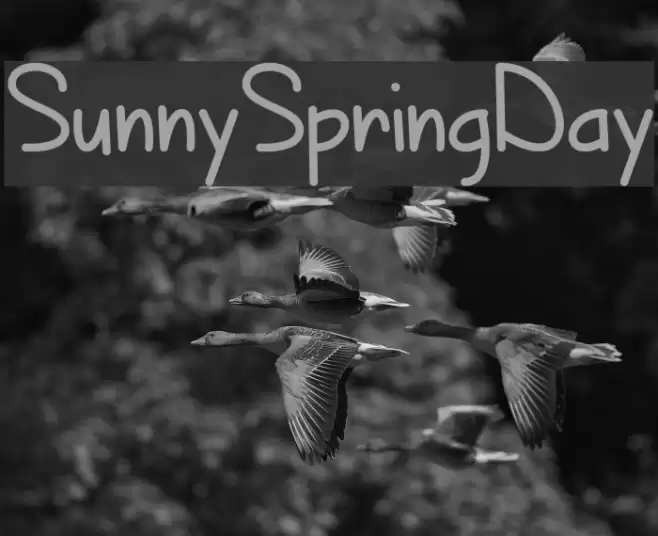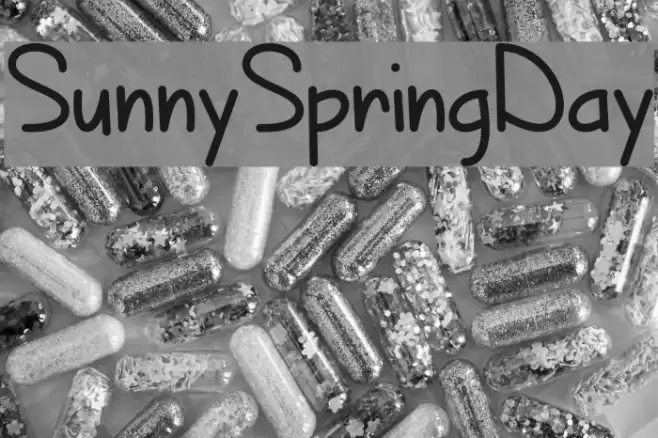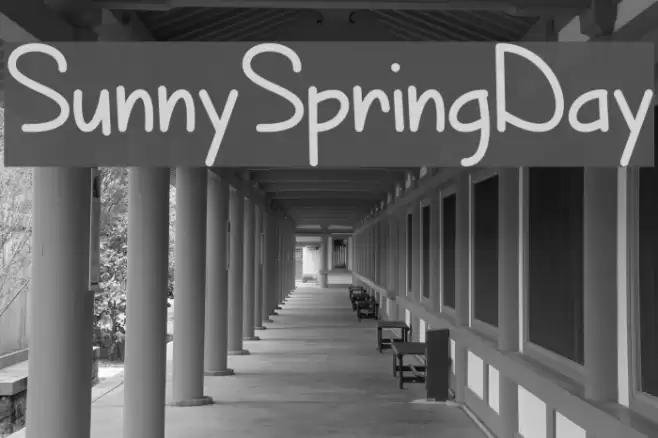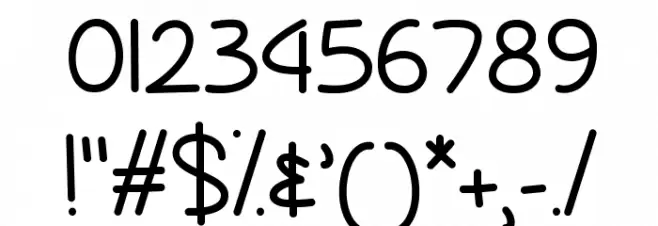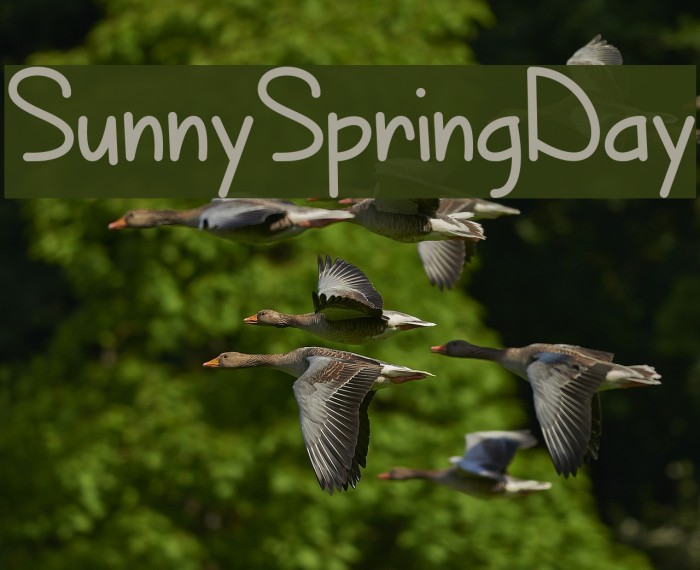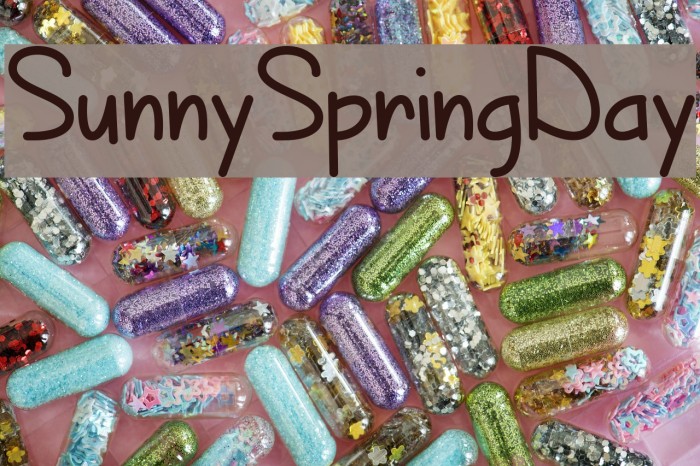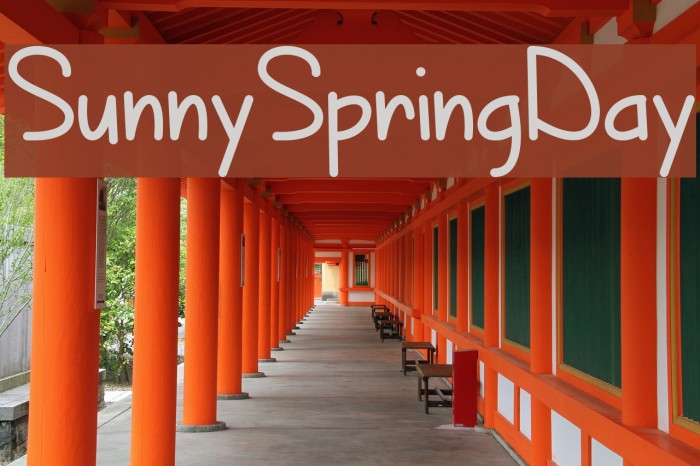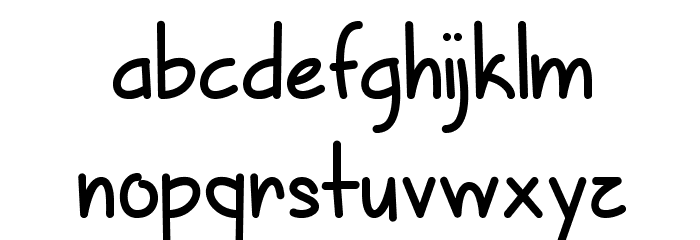
SunnySpringDay Font
SunnySpringDay Description
This font exudes a playful and friendly vibe with its rounded, handwritten style. The characters are slightly irregular, giving it a casual and approachable appearance. The uppercase letters are tall and slightly narrow, while the lowercase letters maintain a consistent height, contributing to a harmonious flow. The numerals are clear and easy to read, matching the overall aesthetic. Special characters are well-integrated, maintaining the font's cohesive look. This font is perfect for projects that require a personal touch, such as invitations, greeting cards, or children's books.
A playful, handwritten font with rounded, friendly characters from Uncategorized fonts.
- Proposed Projects: Ideal for invitations, greeting cards, children's books, and casual branding.
- Overall Style: Casual, Playful
- Use Case: Headlines, Logos, Informal Text